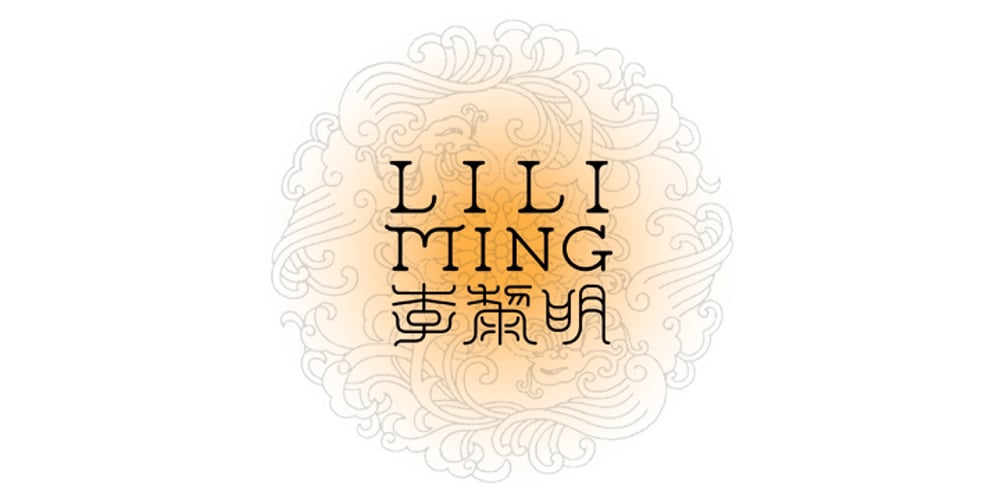
Liliming Font Family was designed by Florent Courtaigne and published by Cubo Fonts. Liliming contains 4 styles and family package options. That font was designed for Liliming, a famous Shanghainese feminine fashion brand. As the brand itself, it shows a solid background – a former typewriter machine feeling – and a fresh creative touch.